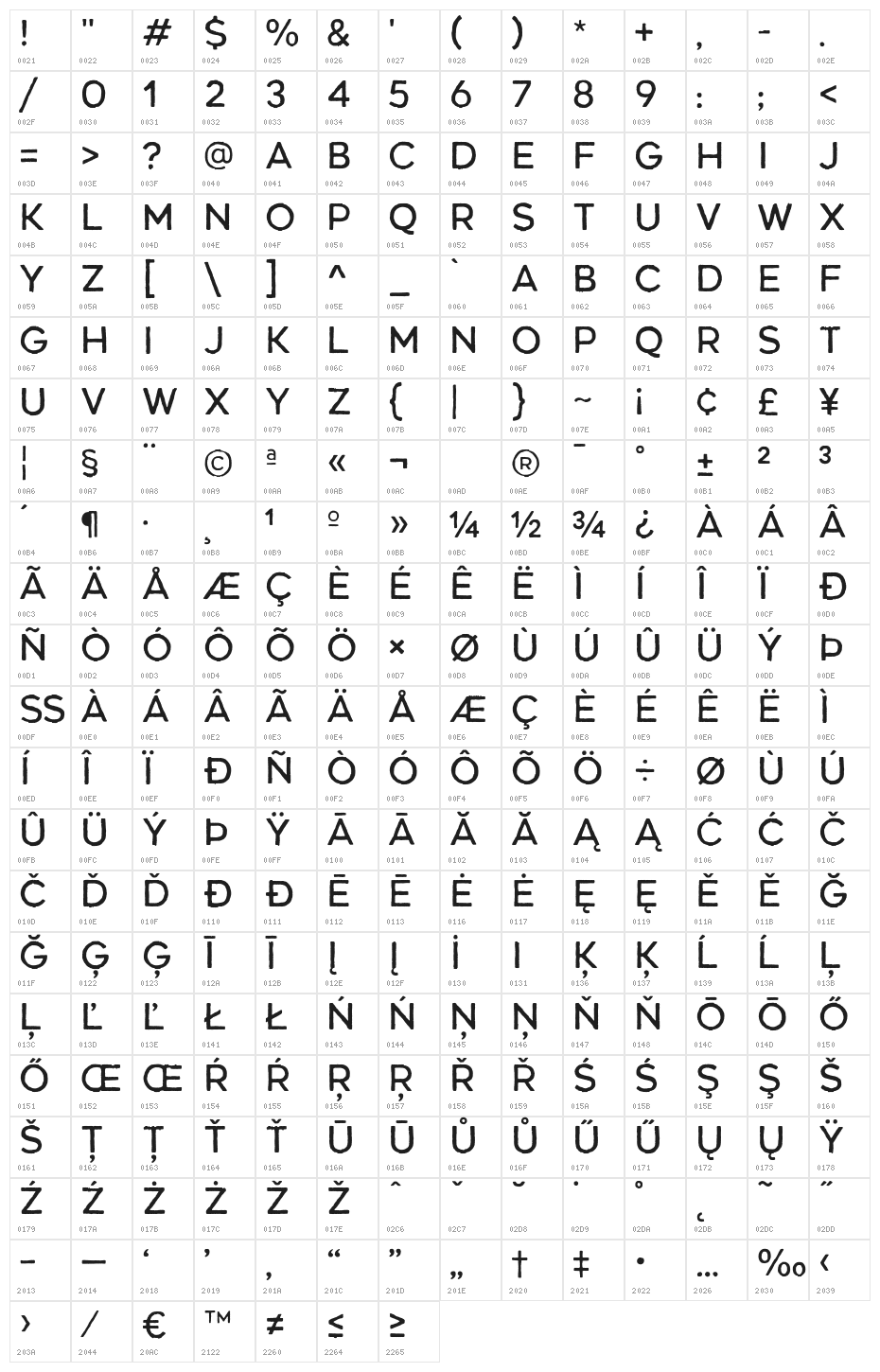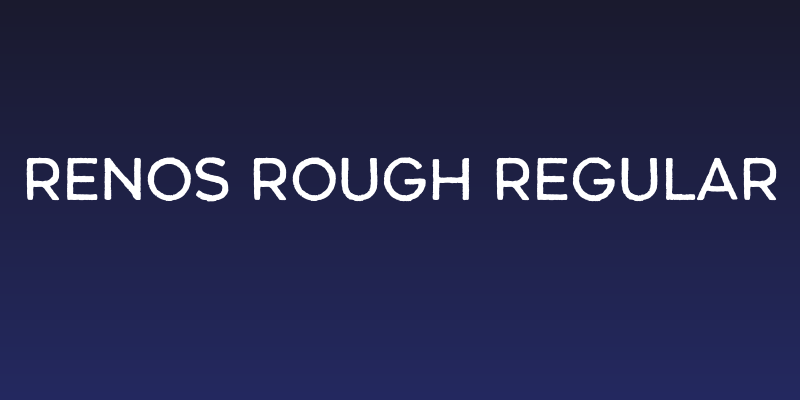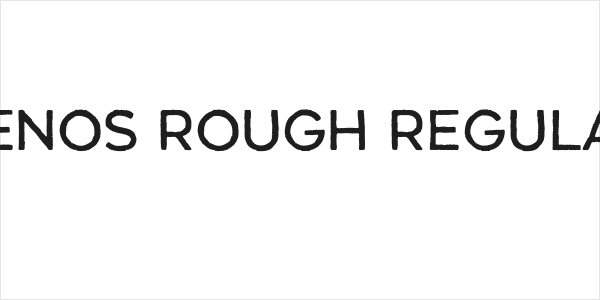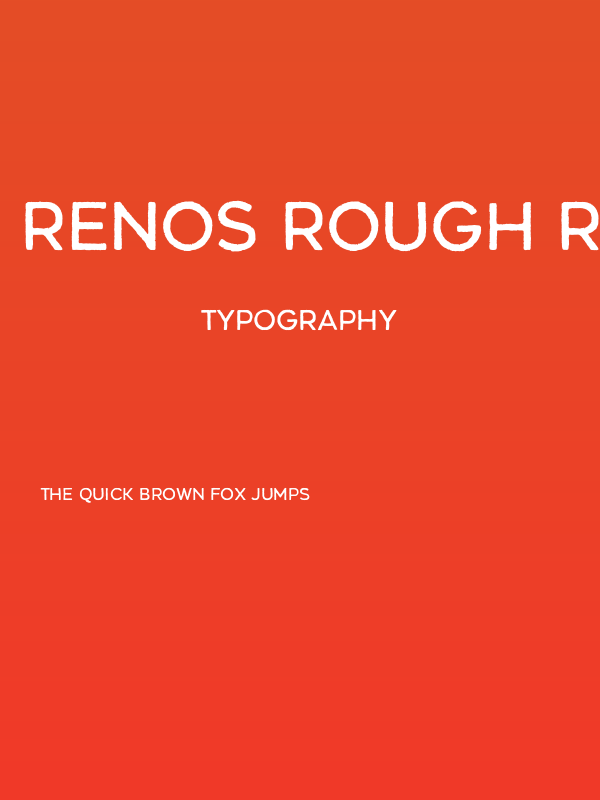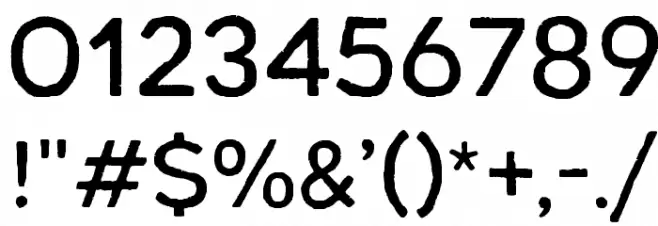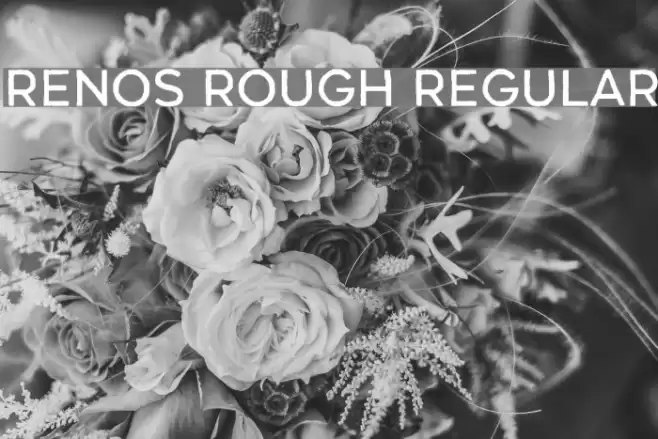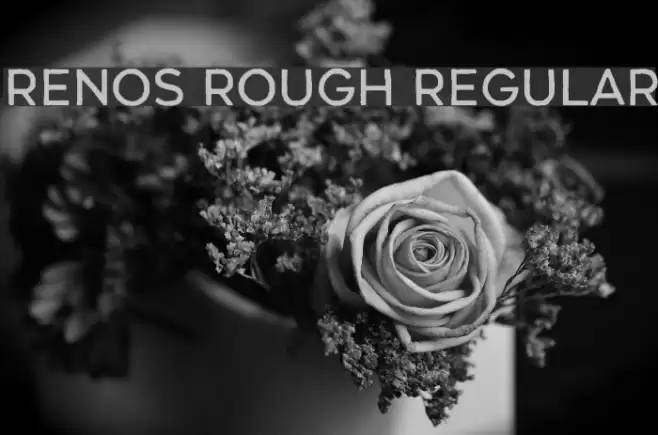
Renos Rough Regular Font
Renos Rough Regular Description
This font features a rough, textured appearance that gives it a hand-crafted, organic feel. The characters are bold and robust, with a slightly irregular edge that adds a touch of vintage charm. The uppercase letters are strong and well-defined, while the lowercase letters maintain a consistent style, ensuring readability. The numerals are clear and distinct, matching the overall aesthetic of the font. Special characters are included, providing versatility for various design needs. The font's unique texture makes it stand out, making it ideal for projects that require a rustic or artisanal touch.
| Overall Style | Vintage |
| Use Case | Logos, Headlines, Posters |
| Proposed Projects | Ideal for branding, packaging, posters, and any design requiring a rustic or artisanal touch. |